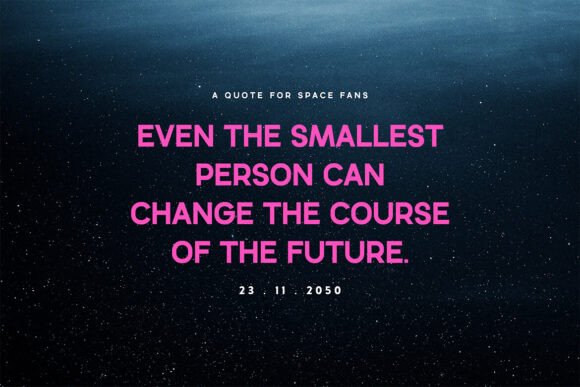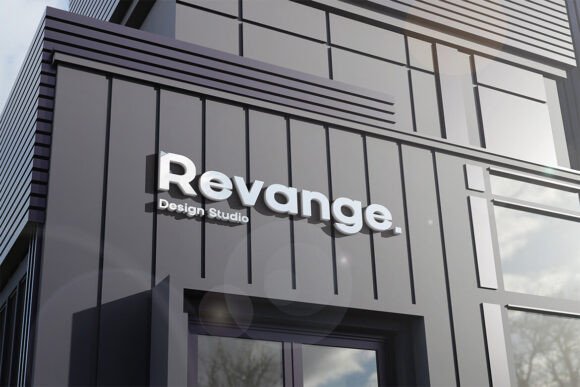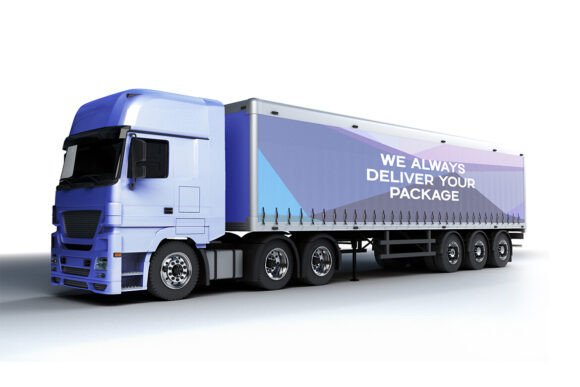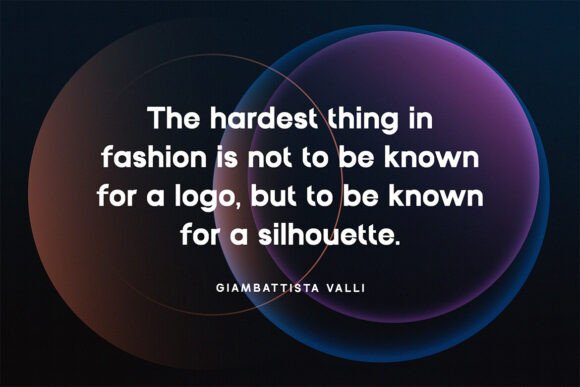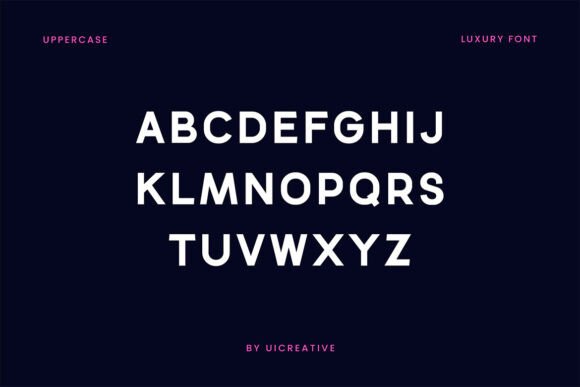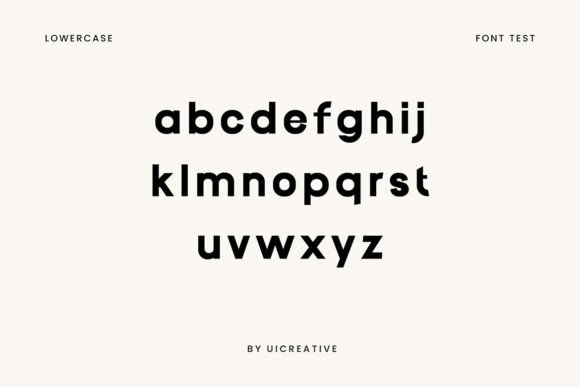
The Perfect Font for a Sweet Design
As designers, we’ve all been there – staring at a blank canvas, waiting for that perfect font to come along and bring our ideas to life. It’s the moment when the entire design starts to take shape, and we know we’re onto something special. For me, that moment often begins with a font that’s both timeless and trendy – a font that can elevate even the simplest of designs into something truly extraordinary.
Enter the Cakewalk Font, a lovely sans serif font that’s sure to make your designs stand out from the crowd. With its unique and beautiful touch, this font is perfect for creating eye-catching logos, branding, and quotes that will leave a lasting impression. Whether you’re a seasoned designer or just starting out, the Cakewalk Font is a valuable addition to any design toolkit.
Cakewalk Font Key Features
- Font Family: Cakewalk is a sans-serif font family designed for digital use, available in various weights and styles.
- Character Set: Cakewalk supports a wide range of languages, including Latin, Cyrillic, and Greek scripts, with over 800 glyphs per font.
- Unique Characteristics: The font’s distinctive design features a rounded, friendly appearance with a subtle flair at the ends of stems, making it perfect for creative and modern designs.
Cakewalk Font Review
I recently had the chance to work with the Cakewalk Font, and here’s my honest take on it. ✨ One thing that really stands out is its unique and playful style. The font has a fun, modern feel to it, making it perfect for projects that require a bit of whimsy. The font also has a wide range of uses, from display headings to body text, which is a definite plus.
However, there are a few limitations to consider ⚠️. The font can be a bit too playful for some projects, and it may not be the best choice for more formal or professional work. Additionally, the font’s readability can be a bit of an issue, especially at smaller font sizes. It’s also worth noting that the font may not be fully compatible with all operating systems or devices.
Overall, I’d say that the Cakewalk Font is a great choice for projects that require a fun and modern touch. Just be sure to consider its limitations before making your decision.
Pros and Cons
- ✨ Unique and playful style
- ✨ Wide range of uses
- ⚠️ May not be suitable for formal or professional work
- ⚠️ Readability issues at smaller font sizes
To get the most out of Cakewalk Font, use it in bold and italic styles to add emphasis to your text.
Experiment with different font sizes and colors to create visually appealing designs.
Cakewalk Font is ideal for:
1. Creative projects (e.g., social media posts, flyers, brochures)
2. Branding materials (e.g., logos, business cards)
3. Digital products (e.g., ebooks, infographics)
Alternatives to Cakewalk Font
Playfair Display is a high-end, elegant serif font that is perfect for creating luxurious and sophisticated designs. It is ideal for use in headings, titles, and other prominent text elements. When to use: Luxury brands, high-end products, and elegant designs. Comparison to Cakewalk Font: Playfair Display is more formal and elegant than Cakewalk Font, which is more playful and casual.
Great Vibes is a beautiful, elegant script font that is perfect for creating romantic and sophisticated designs. It is ideal for use in headings, titles, and other prominent text elements. When to use: Romantic brands, wedding invitations, and elegant designs. Comparison to Cakewalk Font: Great Vibes is more elegant and sophisticated than Cakewalk Font, which is more playful and casual.